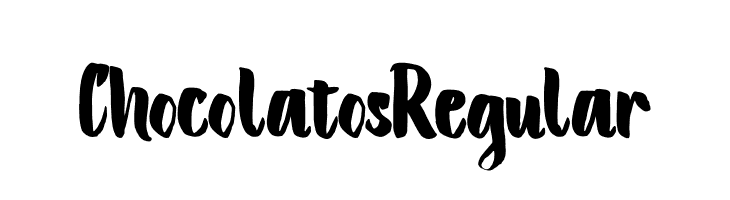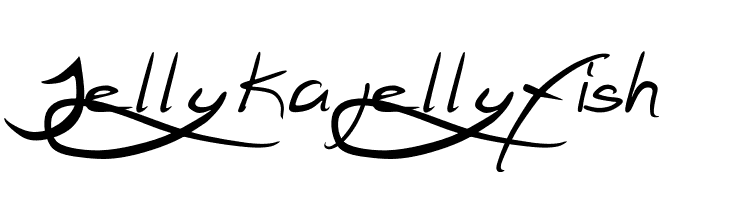
A decorative Fraktur-style font with characters encased in bold circles.
A clean, modern font with elongated characters and rounded edges.
A playful, handwritten font with rounded edges and consistent thickness.
A bold, vintage-style serif font with dramatic strokes and elegant curves.
A modern, geometric font with clean lines and a minimalist style.
A pixelated, grid-based font with a retro digital style.
A whimsical font with characters formed by stick figures, ideal for creative and playful designs.
A whimsical font with characters shaped like sardines, perfect for creative projects.
A sleek, modern font with geometric lines and a minimalist aesthetic.
A futuristic, angular italic font with a bold, modern aesthetic.
A decorative font with outlined, diagonally striped characters.
A bold, playful font with thick, rounded strokes and a brush-like texture.
A bold, italic script font with dynamic, flowing strokes.
A bold, three-dimensional font with a vintage lead type aesthetic.
A refined serif font with an extra light weight and elegant italic style.
An elegant script font with flowing cursive lines and decorative flourishes.
A pixelated, blocky font with a retro digital style.
A whimsical, handwritten font with playful decorative elements.
A bold, high-contrast font with elongated, angular letters and a dynamic style.
Hand-drawn cartoon heads and figures in a playful, illustrative style.
A bold, intricate Blackletter font with medieval flair.
A bold, jagged font with a dripping effect, perfect for horror themes.
A serif font with integrated ASL 'I Love You' signs in uppercase letters, blending classic and playful elements.
An ornate, medieval-inspired decorative font with intricate curves.
A sketch-style, italicized font with a three-dimensional, hand-drawn appearance.
A playful, handwritten font with a bold and artistic style.
A playful, bold outline font with a whimsical, cartoon-like style.
A flowing, cursive font with elegant, interconnected characters.
A modern, semi-bold italic font with medium contrast and dynamic style.
A bold, modern font with clean lines and strong presence.